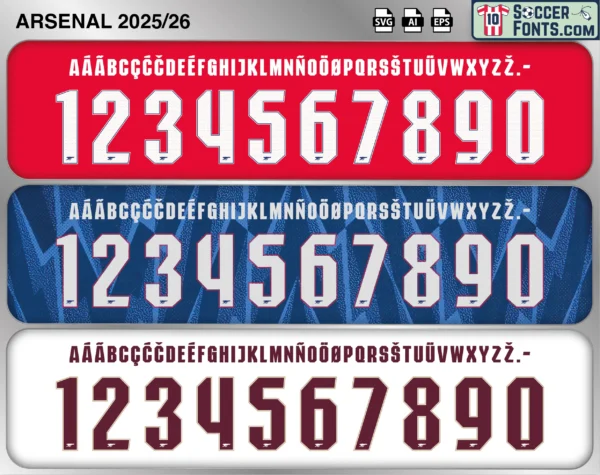
Arsenal 2025-26 Font
Download the Arsenal 2025-26 font, an editable soccer jersey lettering design in vector format inspired by the Arsenal kit style used during the 2025-26 football season. This football font artwork is prepared for football shirt recreations, custom jersey projects, football kit mockups and sports graphic design workflows.
The 2025-26 season became a landmark chapter in Arsenal’s modern history as Mikel Arteta’s project entered another campaign with major expectations in the Premier League and UEFA Champions League. After three consecutive second-place league finishes, Arsenal continued building around an established core while strengthening a squad already accustomed to competing deep into major competitions. Bukayo Saka, Declan Rice, Martin Ødegaard, William Saliba, Gabriel Magalhães and David Raya remained important figures alongside a developing generation including Myles Lewis-Skelly and Ethan Nwaneri. The Arsenal 2025-26 font belongs to an era shaped by the club’s return to sustained title contention and the expectation that a talented Arsenal generation could convert several seasons of progress into major trophies.
The campaign ultimately delivered the achievement supporters had been waiting for, with Arsenal winning the 2025-26 Premier League title and ending the club’s long wait for another English championship. European competition added further significance as the Gunners also reached the UEFA Champions League final, extending a period in which Emirates Stadium had once again become the setting for major continental nights. The Arsenal 2025-26 font is therefore connected with a historic season rather than simply another chapter of the Arteta rebuilding project. For supporters and collectors, the Arsenal 2025-26 font represents a championship-winning generation, the culmination of years of development and one of the defining seasons of Arsenal’s Emirates Stadium era.